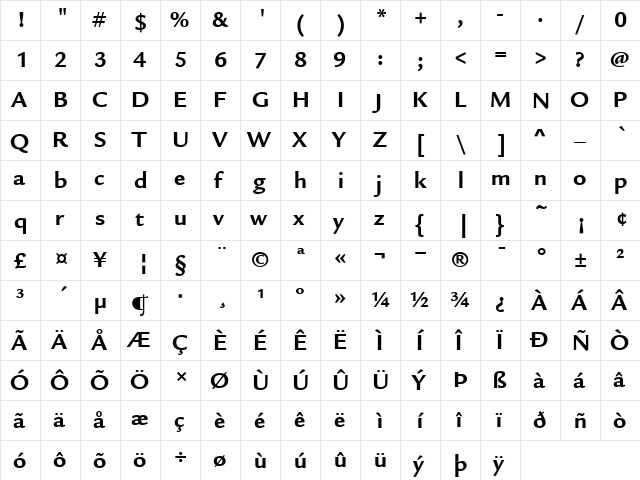
ITCLegacySans Bold
Design Context for ITCLegacySans Typeface
ITCLegacySans is a composed and adaptable typeface that performs quietly and consistently across a wide range of design contexts. The heavy weight commands attention and anchors typographic hierarchies.